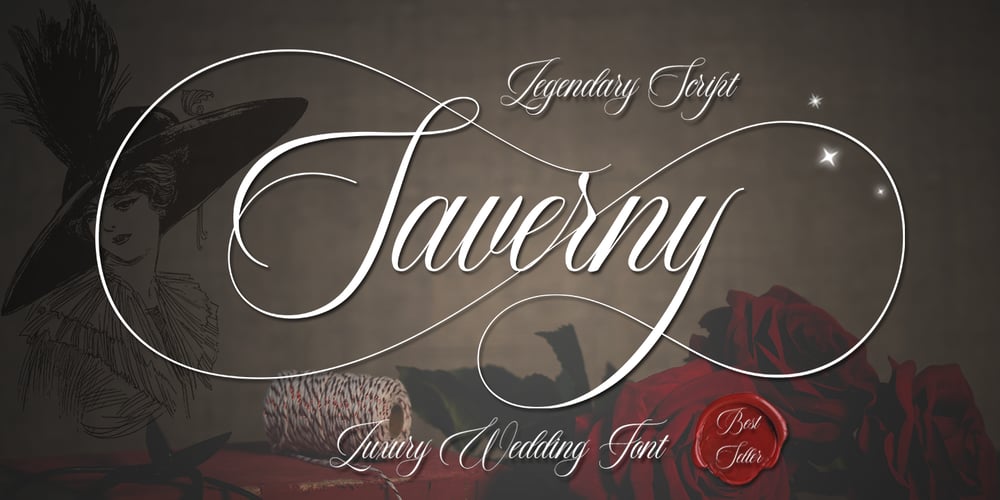
Saverny Font Family was designed by T Haikal Budillah and published by HKL Studio. Saverny contains 1 styles and family package options. Saverny ScriptThis is a Vintage calligraphy script font that comes with beautiful alternative characters. copper plate mixed calligraphy with handttering style. Designed to convey stylish elegance. Saverny Script has a smooth, clean, feminine, sensual, glamorous, simple, and easy to read typeface.Saverny Script comes with a Clean and Aged version, beautiful upper and lower case, binding and favored by many finishes. It has Multilingual support (West European characters) and works with the following languages: English, Danish, Dutch, Estonian, Finnish, French, German, Hungarian, Icelandic, Italian, Norwegian, Polish, Portuguese, Spanish, Swedish.In my example I show how this script can be used. It’s perfect for logos, wedding invitations, alcohol labels, romantic cards and more.Products include:Clean & Aged Script Version Alternative Uppercase & Lowercase Font Style Binders Recommended for use in Adobe Illustrator or Photoshop. Custom features don’t work in Microsoft Word.